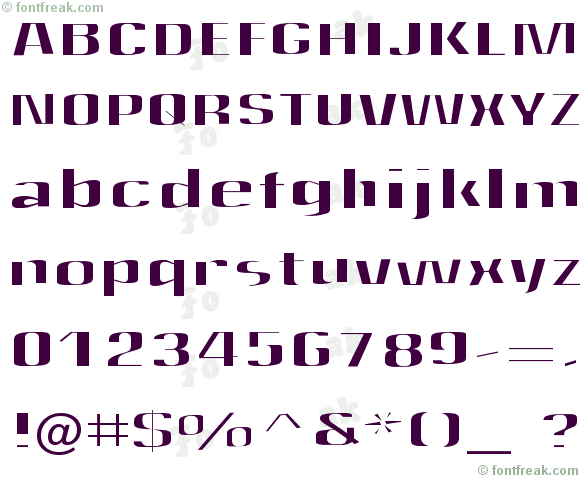
Quantity
The Quantity font, designed by Ray Larabie in 1997, is a striking display typeface that captures attention with its bold and unique aesthetic. This freeware font combines a playful spirit with a modern edge, making it ideal for a variety of creative applications. As a display font, it features thick strokes and a strong presence, ensuring that it stands out in any design context. The letterforms exhibit a balanced contrast, with varying stroke weights that add visual interest, while generous spacing enhances legibility.
Quantity is particularly well-suited for use cases that require a bold statement. It shines in applications such as movie posters, where its dynamic style can draw viewers in. Additionally, it works wonderfully for branding purposes, including logos and restaurant menus, giving a lively character to the overall presentation. Event planners and designers will also find it perfect for wedding invitations, where its distinctive flair can add a personal touch. Content creators and graphic designers will appreciate its versatility, allowing for creative freedom across different projects.
The target audience for Quantity includes graphic designers, small business owners, and content creators who are looking to make a memorable impact with their work. It serves as an excellent tool for anyone needing a font that combines functionality with a playful edge.
What sets the Quantity font apart is its ability to blend modern design elements with a touch of whimsy. This makes it not just a typeface, but a conversation starter in any visual project. For those seeking a unique and engaging option, the Quantity font free download offers an opportunity to elevate their designs and capture attention effectively.